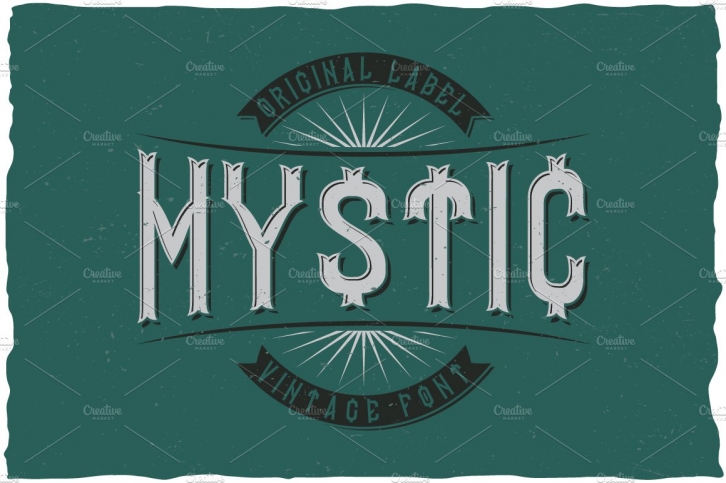
Here is a classic look label typeface named "Mystic". It's made in vintage label style. Font is perfect for any labels design.
- 6 styles of font, named Mystic Aged, Mystic LightAndShadow, Mystic LightAndShadowFX, Mystic LightFX, Mystic Regular, Mystic ShadowFX.
- You can mix these styles how do you like. Because in complect are included additional fonts - Mystic LightAndShadowFX, Mystic LightFX, Mystic ShadowFX. For example: type your phrase in Regular, copy and past at same position and change font to Light FX. Copy and paste at the same position and change font to Shadow FX. You will get Mystic font with shadow and light effect! And you can change color of each element!